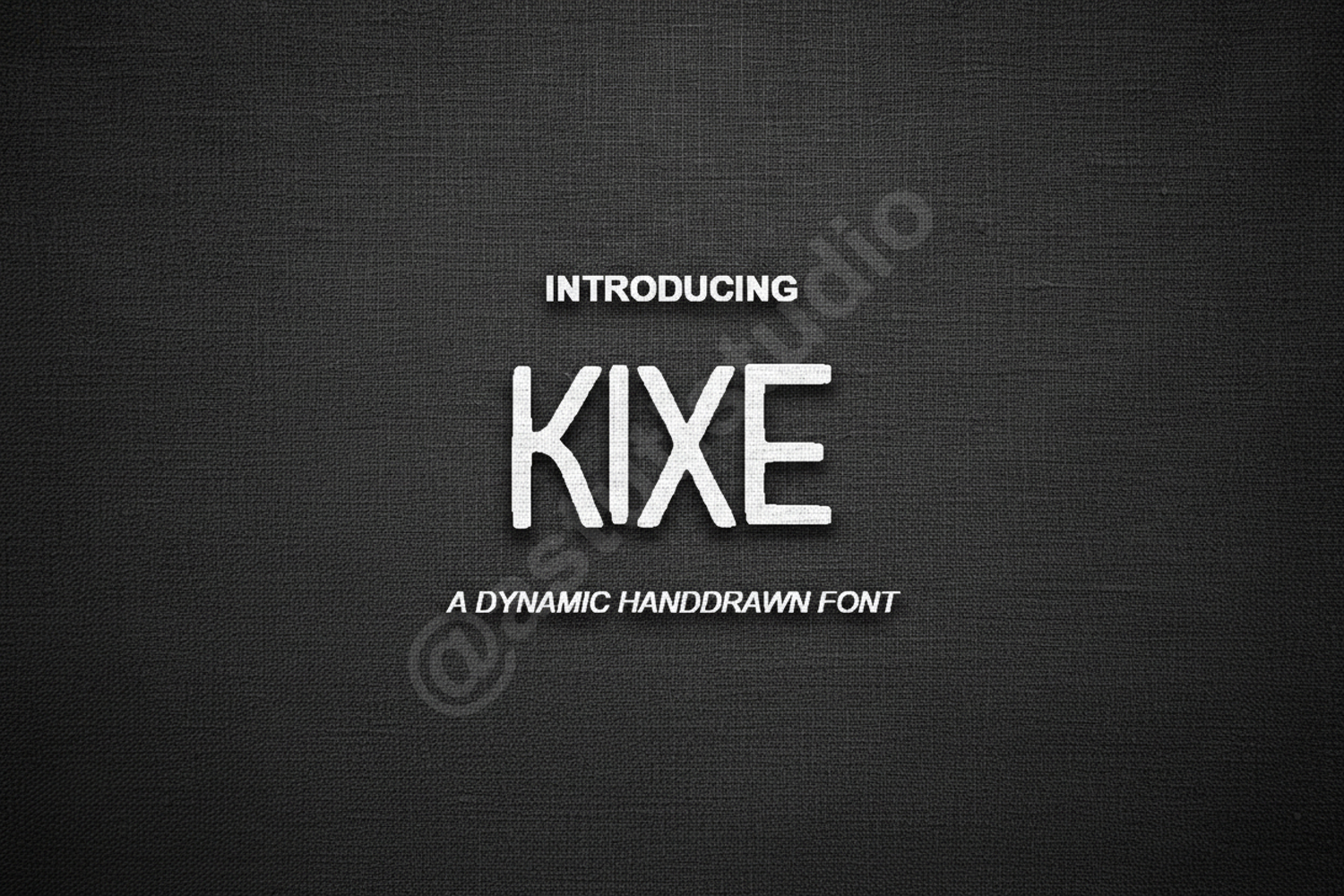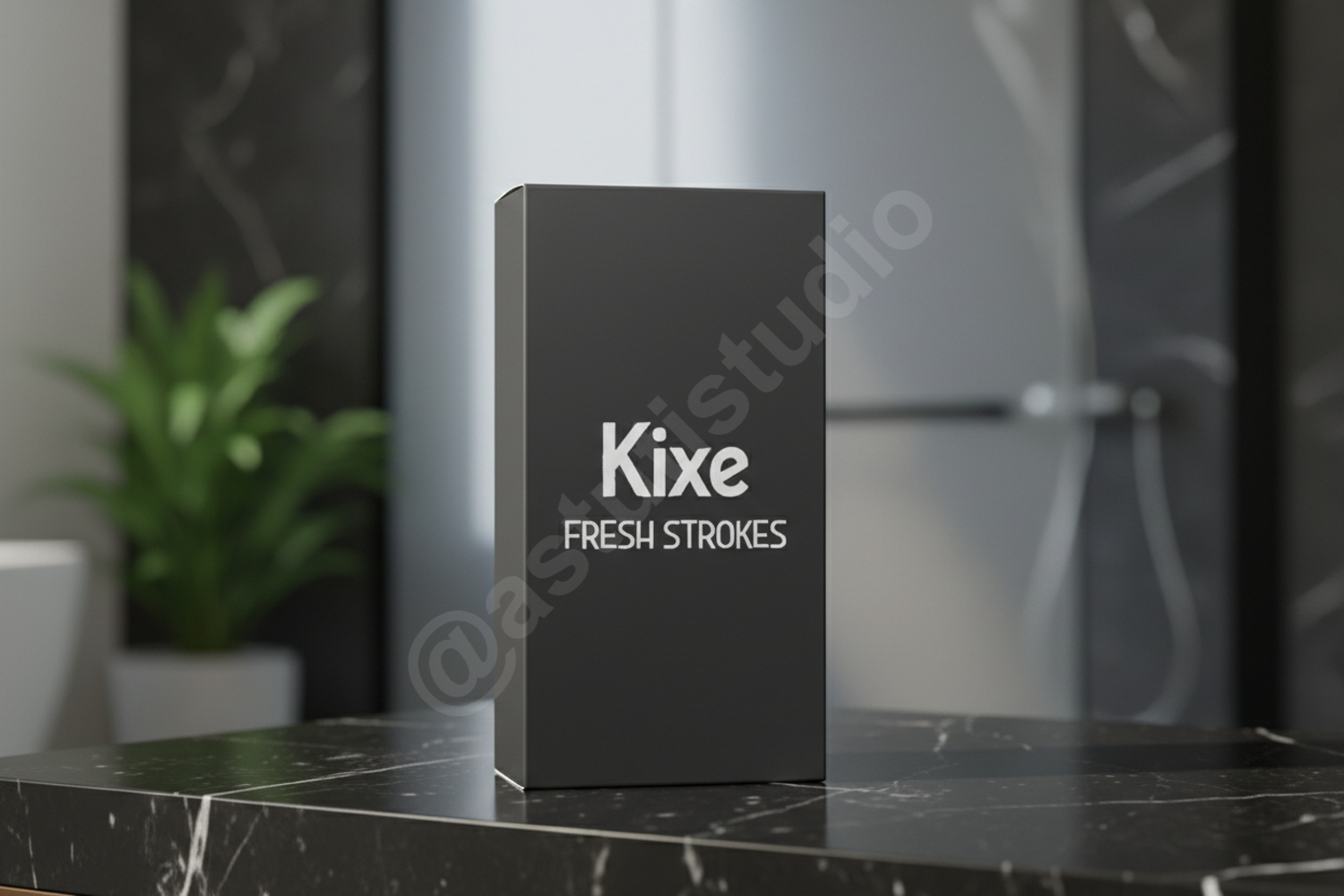
Kixe - Modern Luxury Display Serif
Kixe
Elevate your creative projects with Kixe, a premium display serif font that embodies sophistication and modern flair. Designed with precision, Kixe balances sharp lines with elegant curves, making it the perfect choice for designers looking to add a touch of luxury to their work. Whether you are crafting a high-end brand identity or a minimalist editorial layout, Kixe provides the versatility and professional polish your projects deserve.